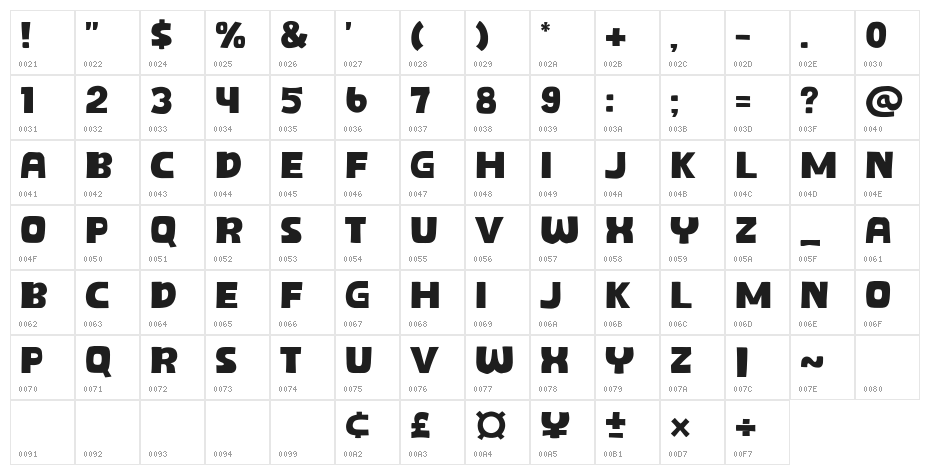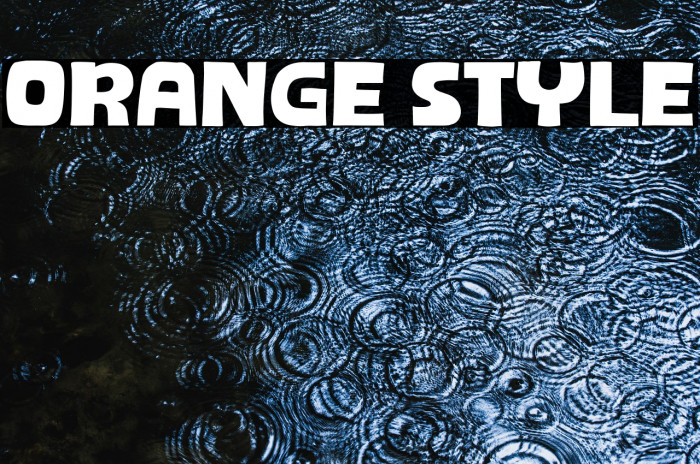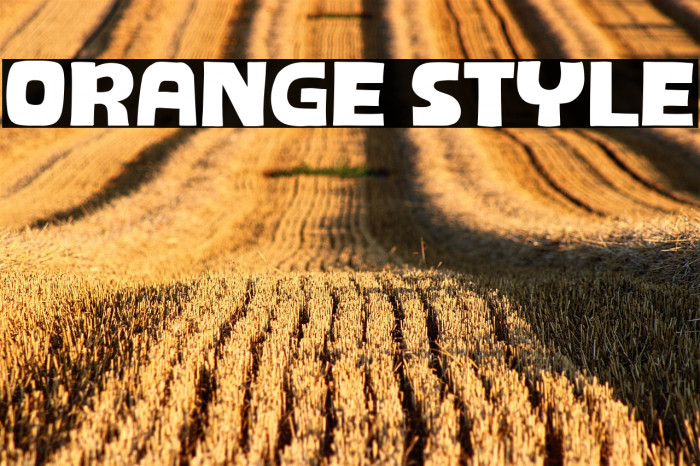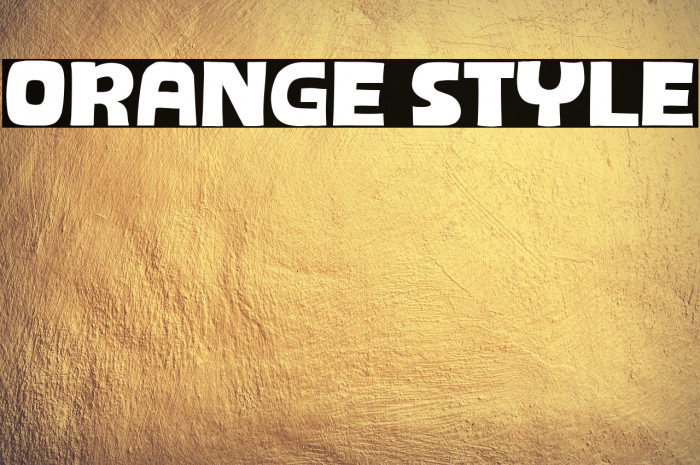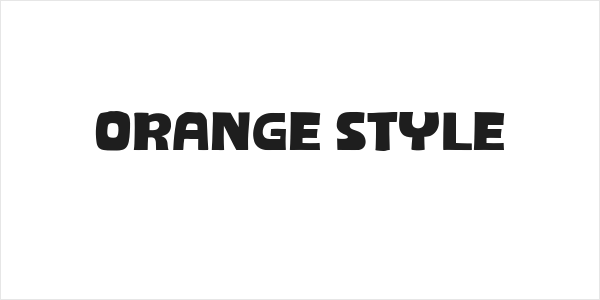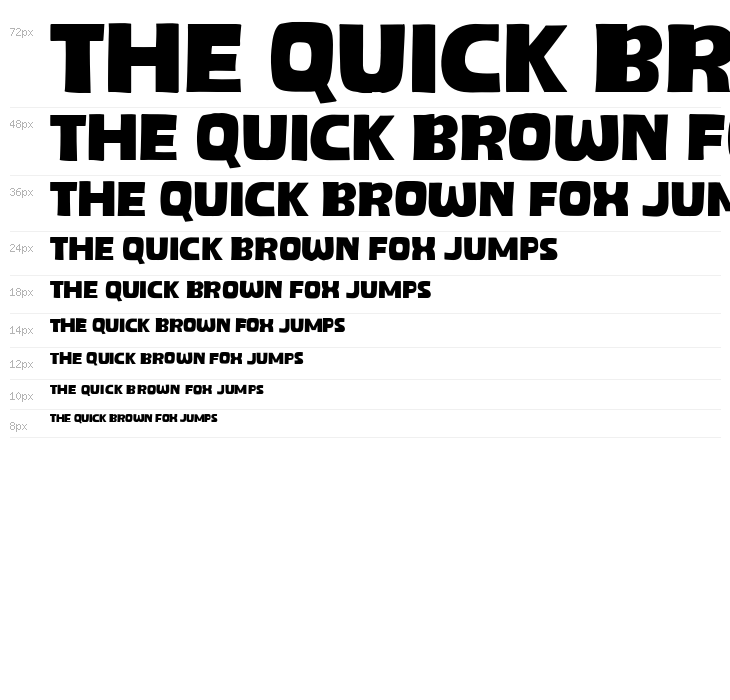
Orange Style Font
Orange Style Description
This font features bold, rounded characters with a playful and dynamic appearance. The letters are thick and slightly condensed, giving them a strong presence. The curves are smooth, and the overall design is consistent across uppercase and lowercase letters, as well as numbers and special characters. The font exudes a sense of fun and energy, making it ideal for creative and informal projects. Its boldness ensures readability while maintaining a unique style that stands out.
| Width | Condensed |
| Overall Style | Playful |
| Proposed Projects | Ideal for children's books, playful branding, posters, and creative advertising. |